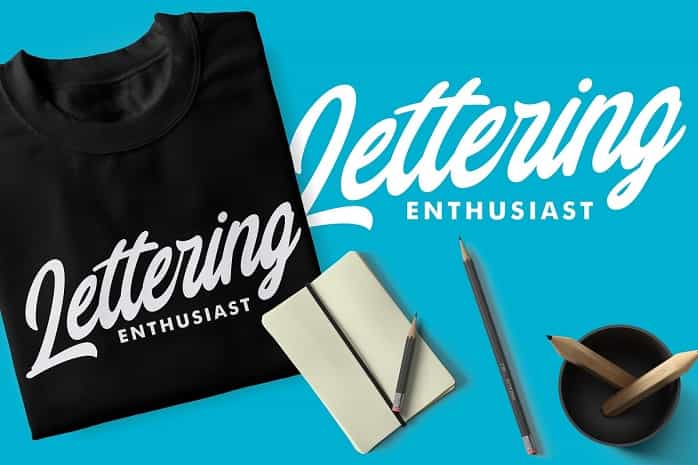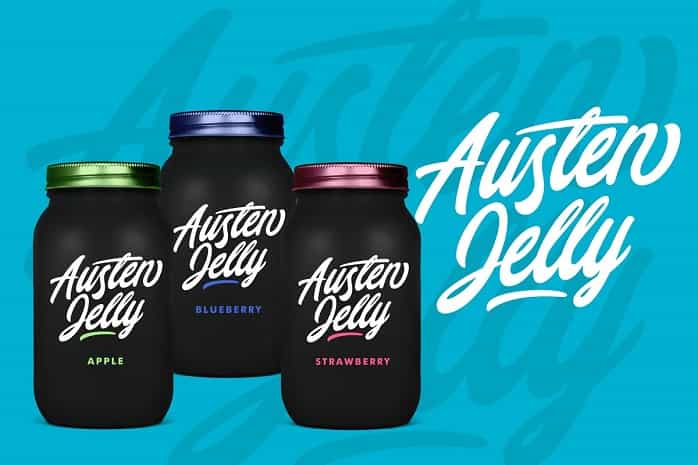
Hello everyone, Introduce our font product, Chillout Font. Chillout Typeface is a cool script font made by hand lettering bold and colorful style. so you can make fantastic, chill and stylish design. It is good for making creative templates and graphic design. Chillout Typeface is a best choice for Logotype, Branding Design, Logo Design, Digital Lettering Arts, Instagram Design, T-Shirt/Apparel, Poster and Magazine design etc. it is a set of display font, the assortment has 5 fonts!